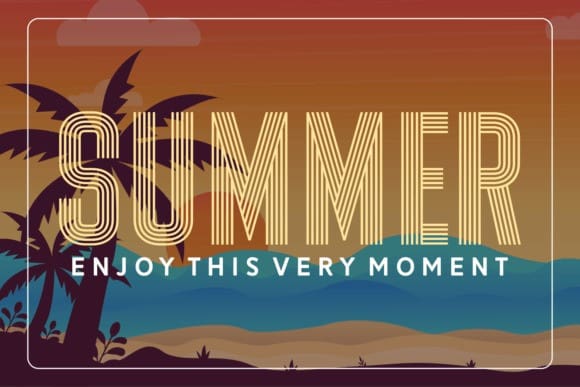
Summer Favourite Font
Summer Favourite Font is an incredibly cool display font. With a modern yet whimsical style, this font has the potential to bring each of your creative ideas to the highest level!